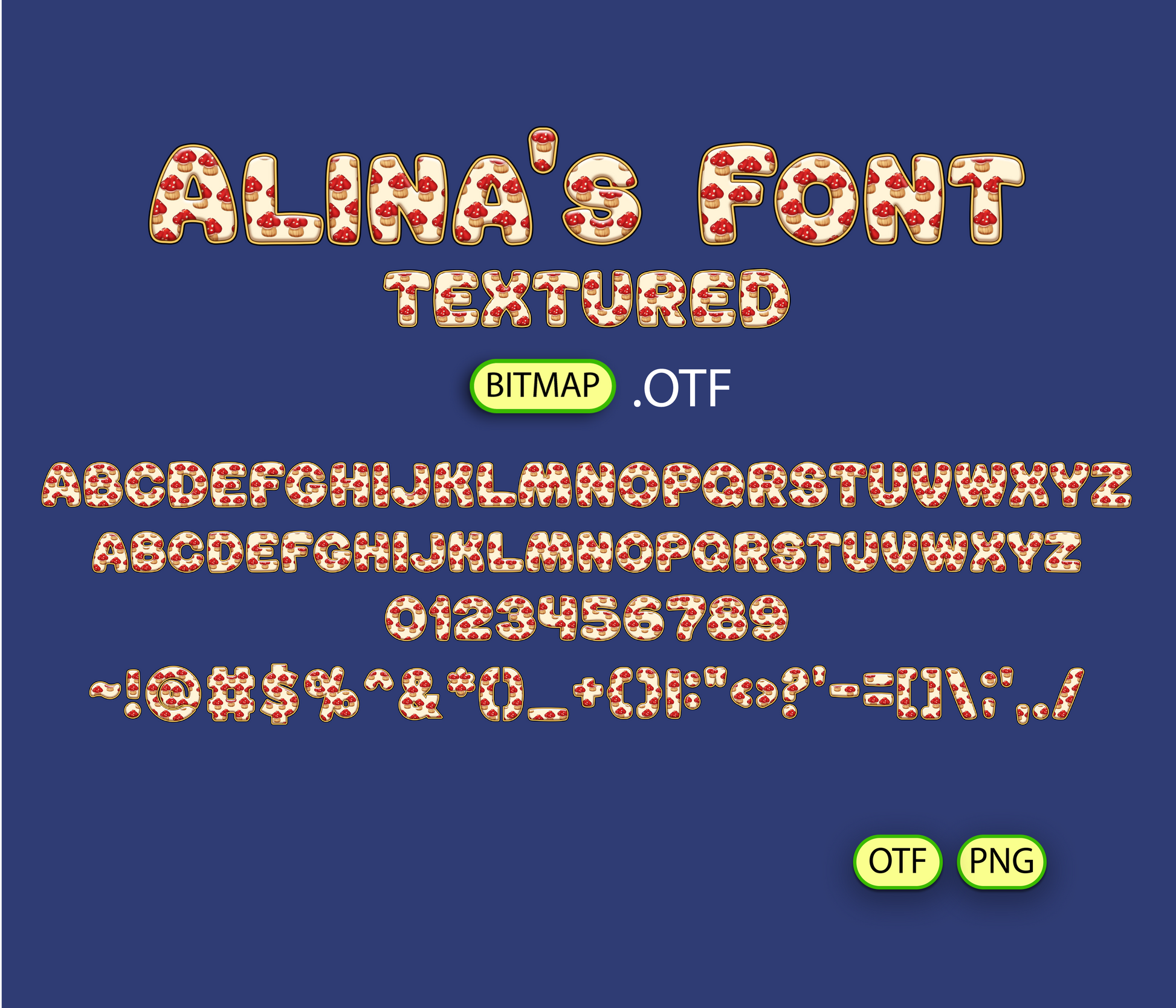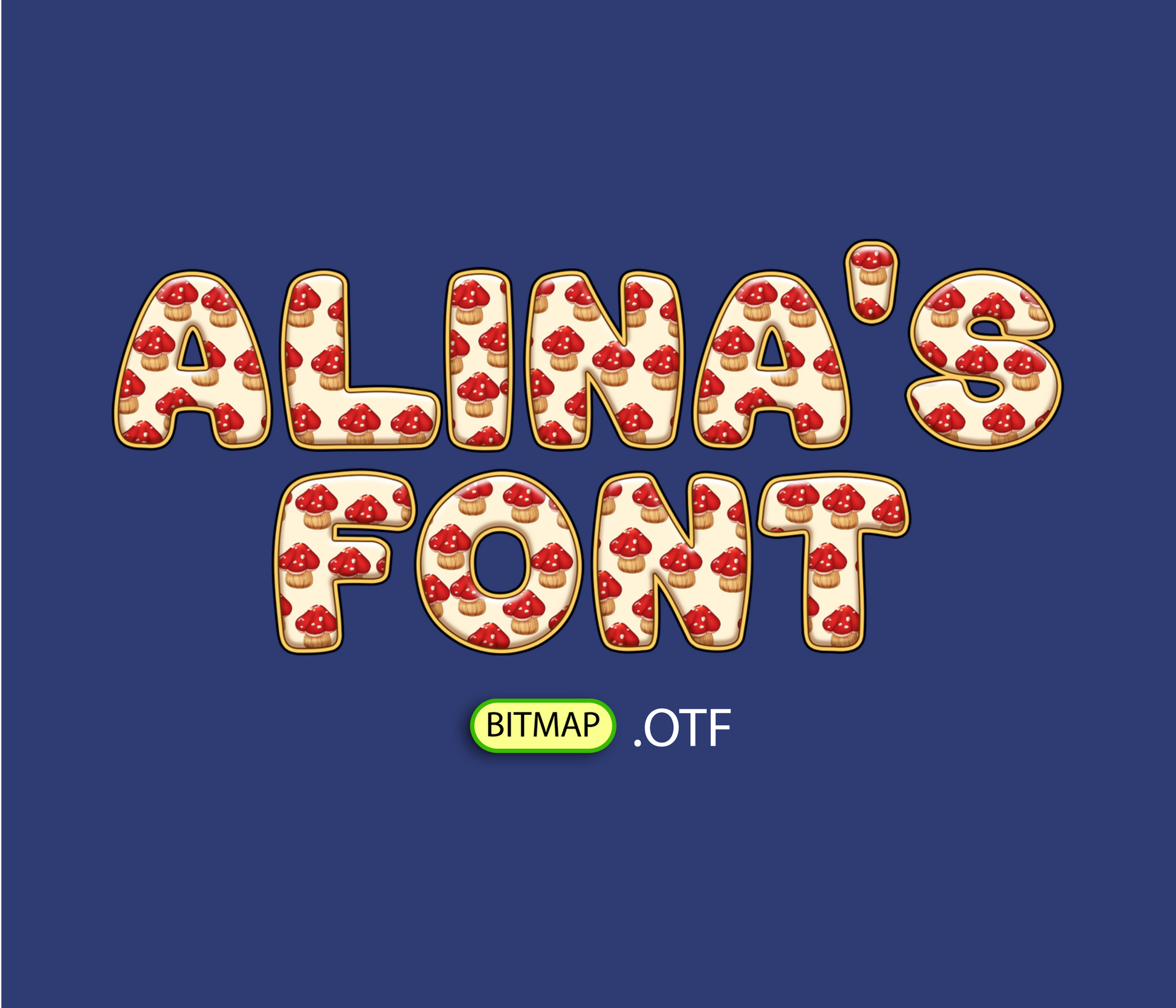
Mushroom Forest Typeface Textured
Step into the mysterious world of woodland fungi with our Mushroom Forest Typeface, capturing the essence of earthy growth and natural mystique. Perfect for organic food brands, foraging guides, fantasy creators, and creative professionals, this font brings the enchanting, woodland spirit of mushroom hunting to your projects. Create captivating signage, nature-inspired products, or digital content with the rich, organic appeal of forest floors and fairy ring circles.
Our Mushroom Forest Typeface features curved, fungi-inspired shapes and whimsical characters reflecting the mysterious yet grounded aesthetic of mycological wonders.
- Culinary Business: Create appealing menus, packaging, and promotional materials for specialty restaurants, gourmet food stores, and artisanal mushroom growers
- Nature Education: Perfect for field guides, botanical materials, and educational content celebrating mycology and forest ecosystems
- Digital Media: Enhance websites, blogs, and social media with organic headers and graphics that express natural wisdom and earthy mystique
- Fantasy Projects: Add authentic character to game designs, fantasy novels, and promotional materials for magical storytelling and enchanted forests
- Personal Projects: Bring woodland charm to greeting cards, craft projects, and home decor inspired by the aesthetics of mushroom foraging and forest adventures